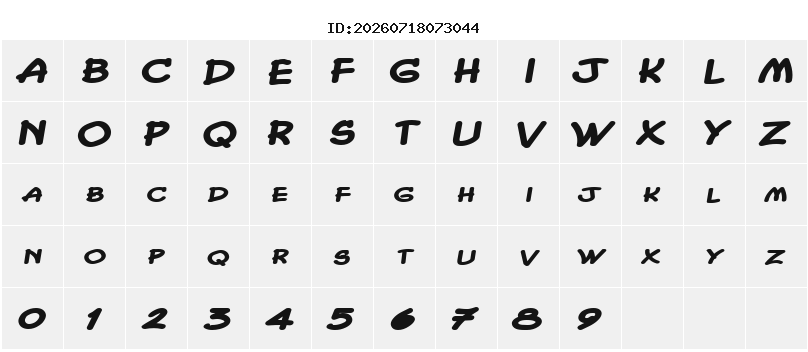
• Font Name: Chasm Extended Heavy
• Font Style: BoldItalic
• Font ID: Altsys Fontographer 4.1 Chasm Extended Heavy BoldItalic
• Full Font Name: Chasm Extended Heavy BoldItalic
• Version: Altsys Fontographer 4.1 1/27/95
• PostScript Name: ChasmExtendedHeavyBoldItalic
About Chasm Extended Heavy.ttf
Chasm Extended Heavy.ttf is a modern, elegant sans-serif font designed for ultimate readability and visual harmony. Perfect for branding, headlines, web design, and print materials.